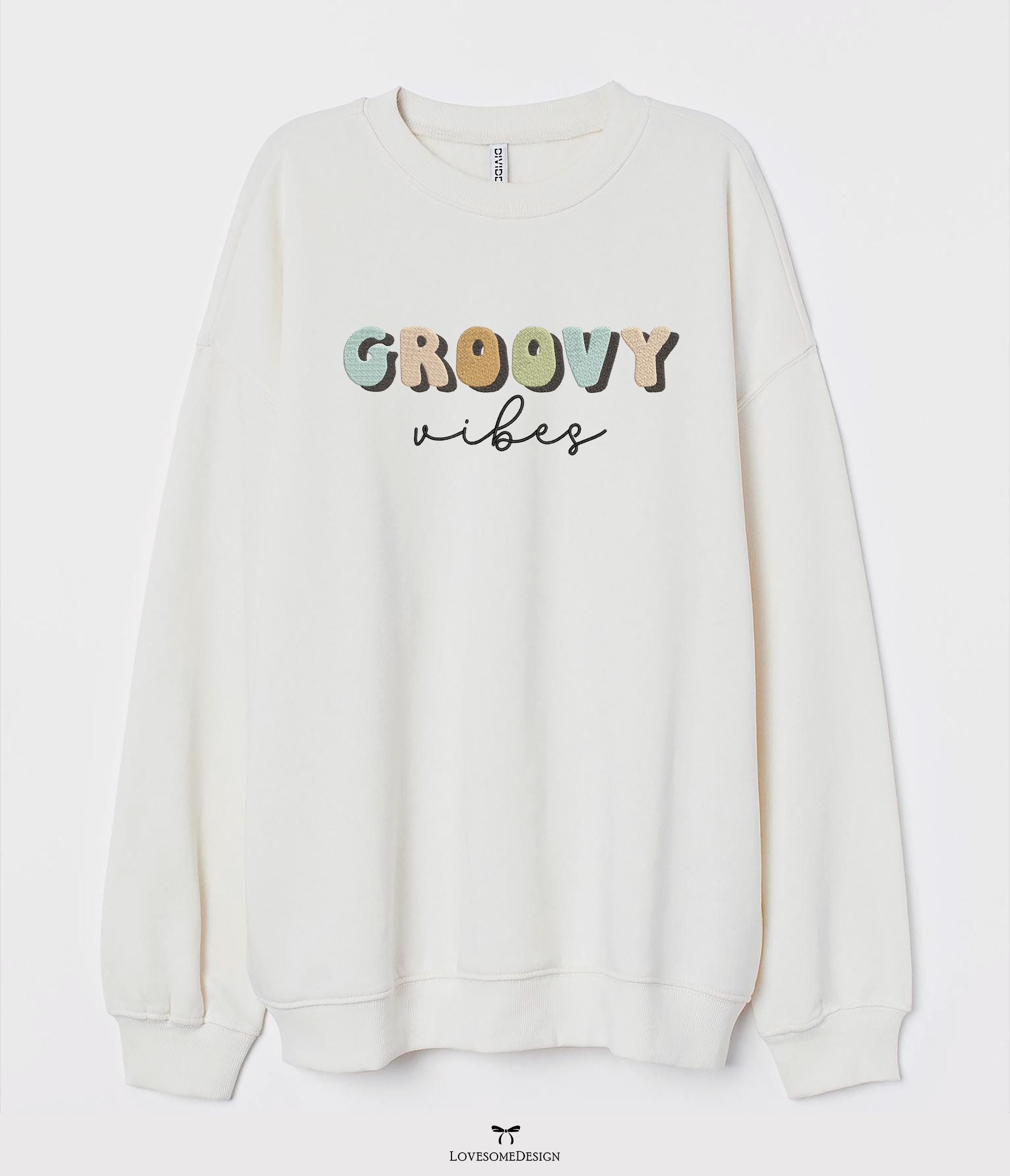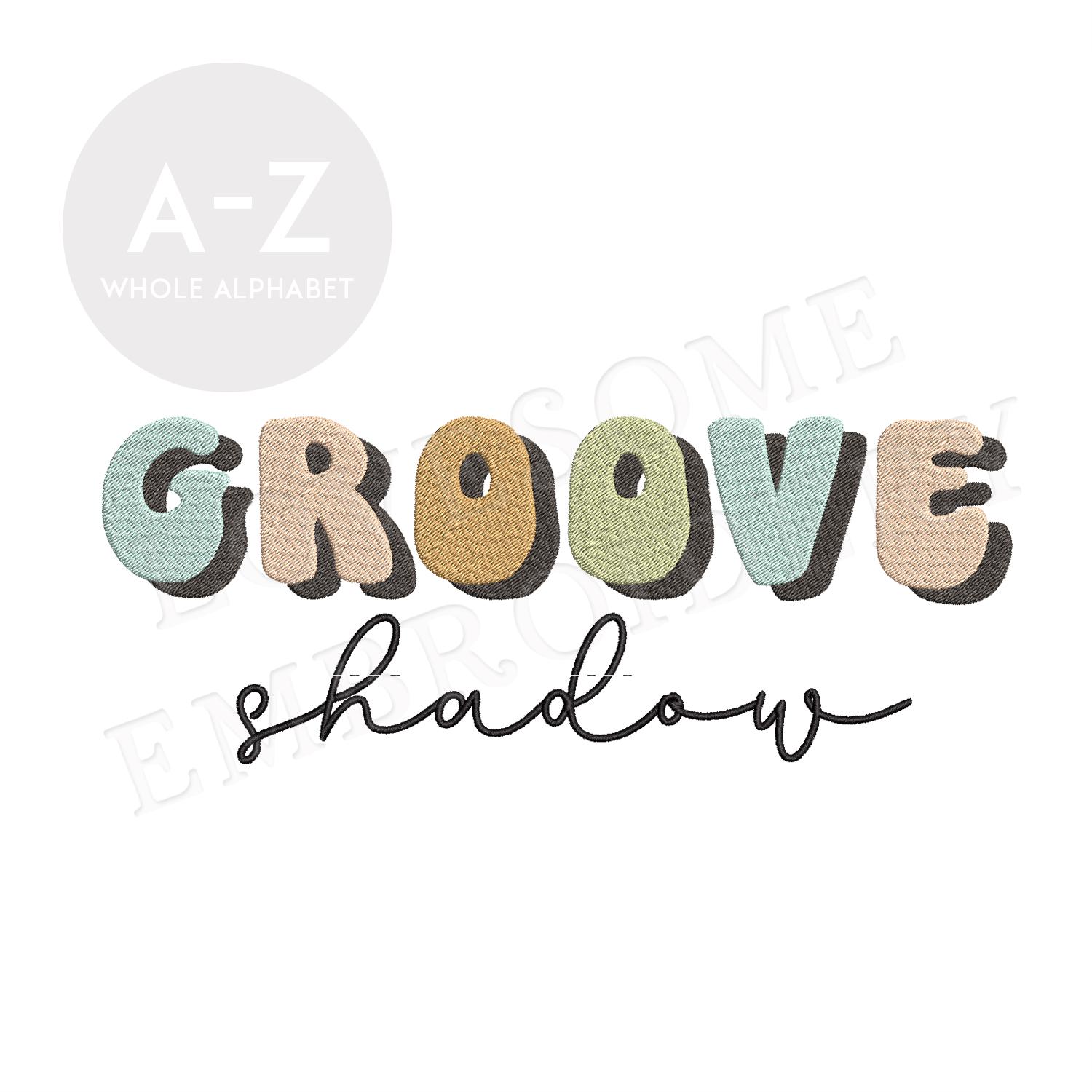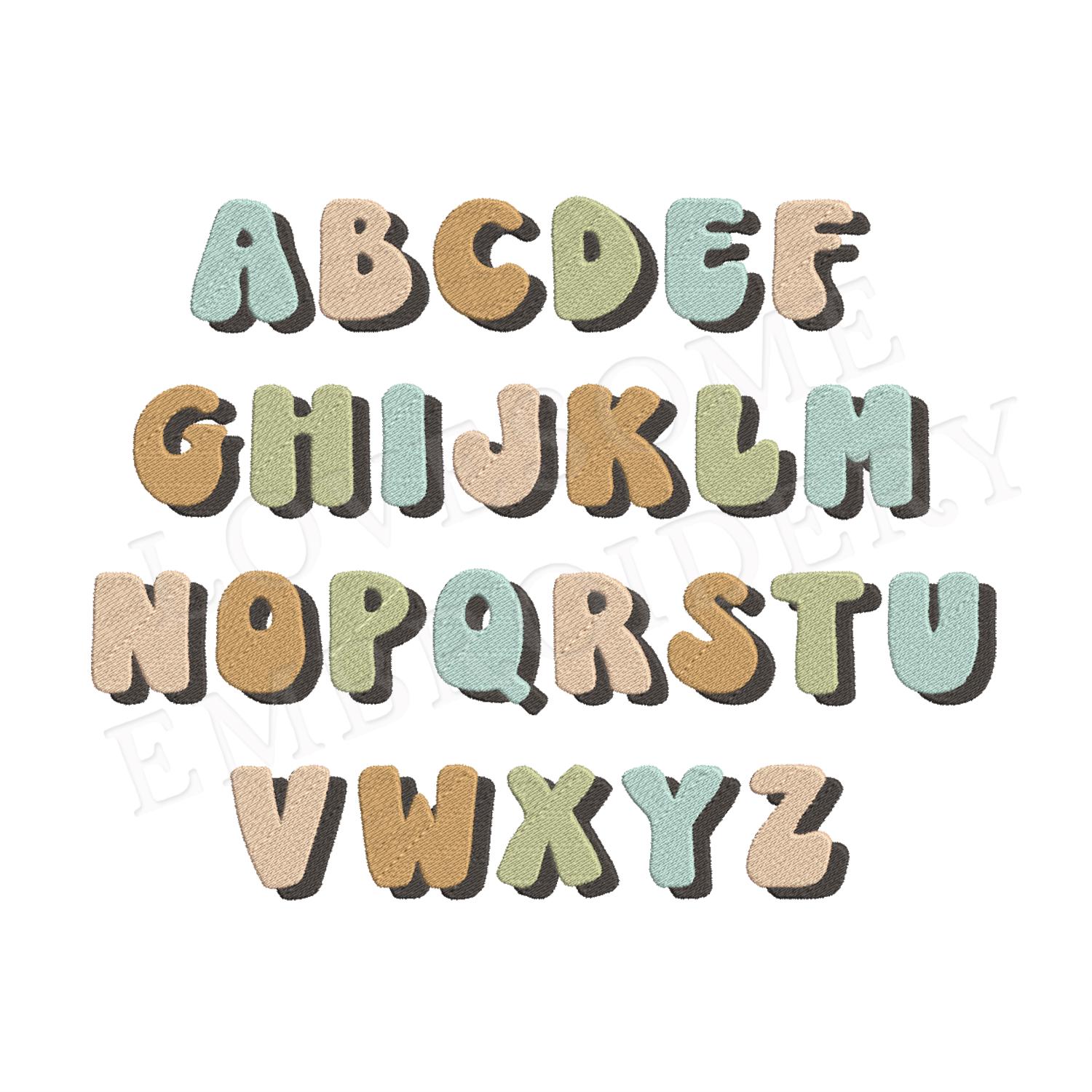
Groove Shadow Font 2inch Retro Font A-Z Machine Embroidery Font Digital Download | Lovesome Design
This listing features a machine embroidery groovy font set which includes embroidery files of 26 uppercase shadow letters in 2inch size. (For the whole set, pls see the listing images.)